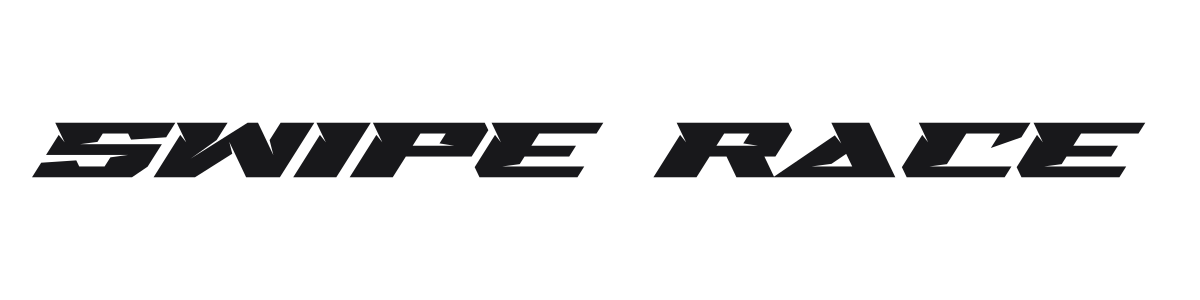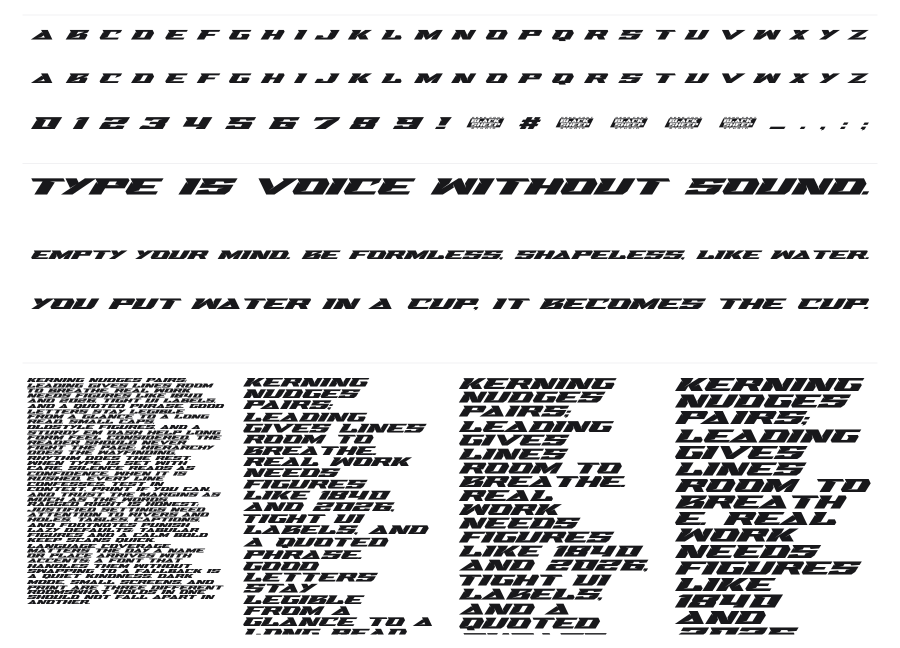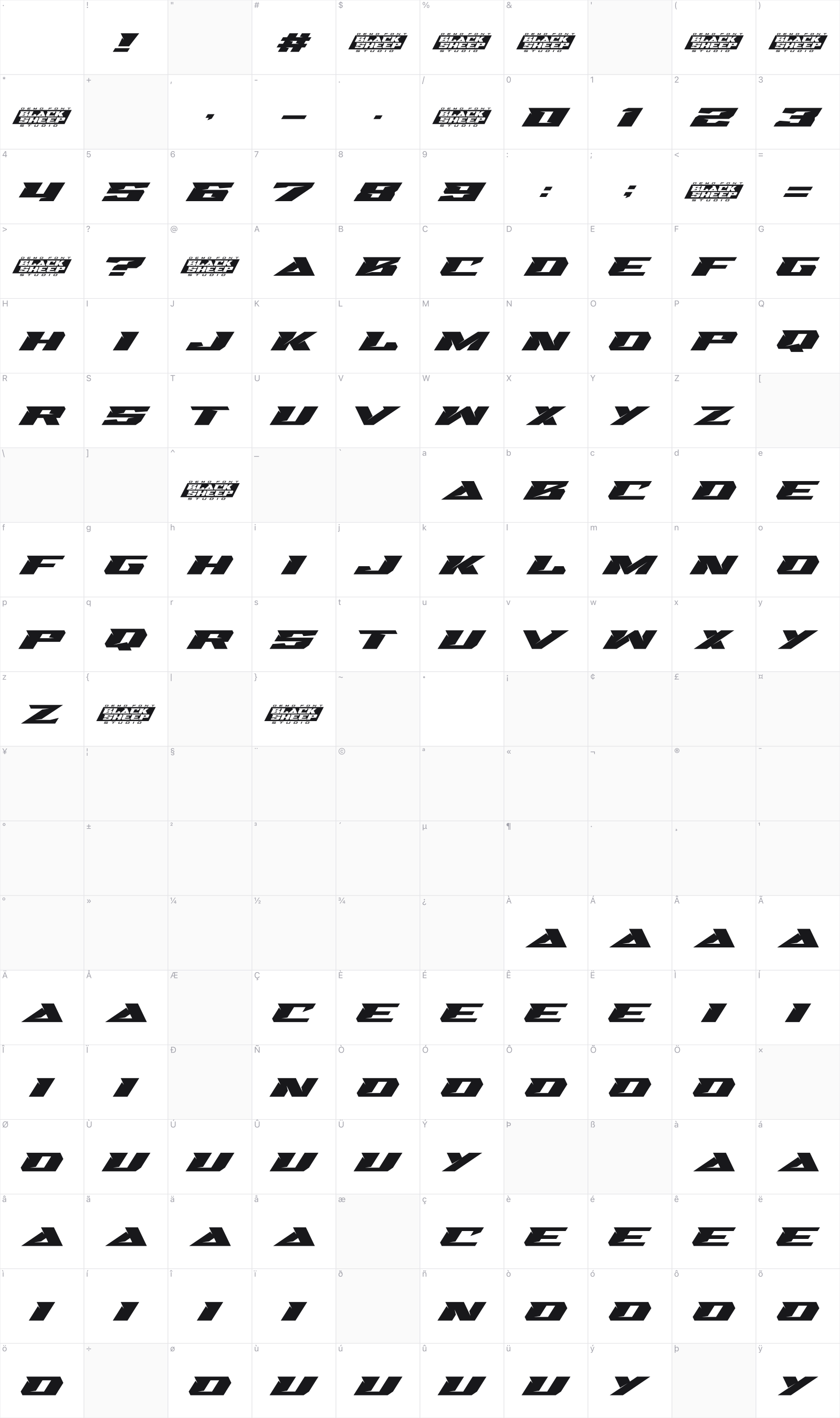
Swipe Race
Swipe Race is a heavily italicized display font built entirely around the aesthetic of speed. Every character leans forward with sharp, clipped terminals and an aggressive angular construction that recalls motorsport typography of the 1970s and 80s. It works at large sizes where the motion and attitude come through.